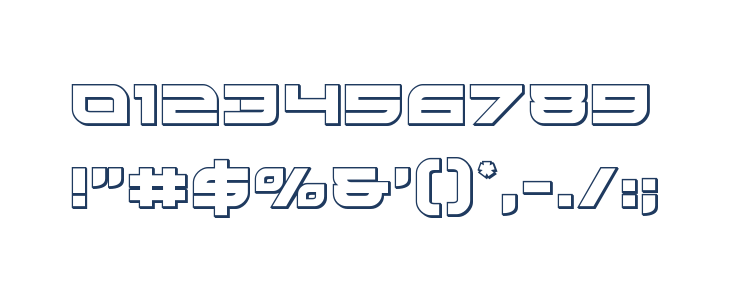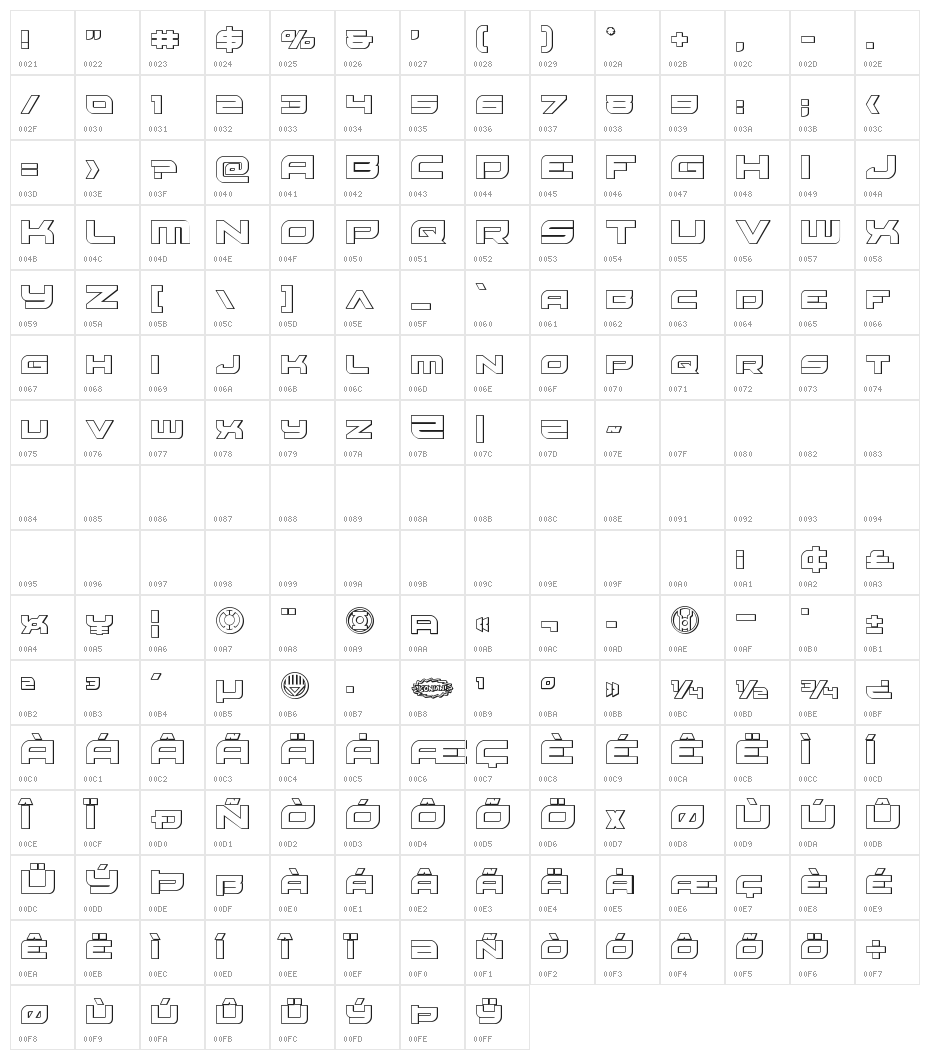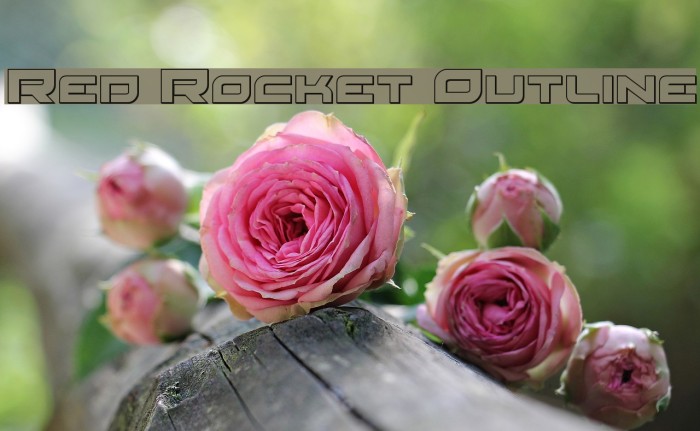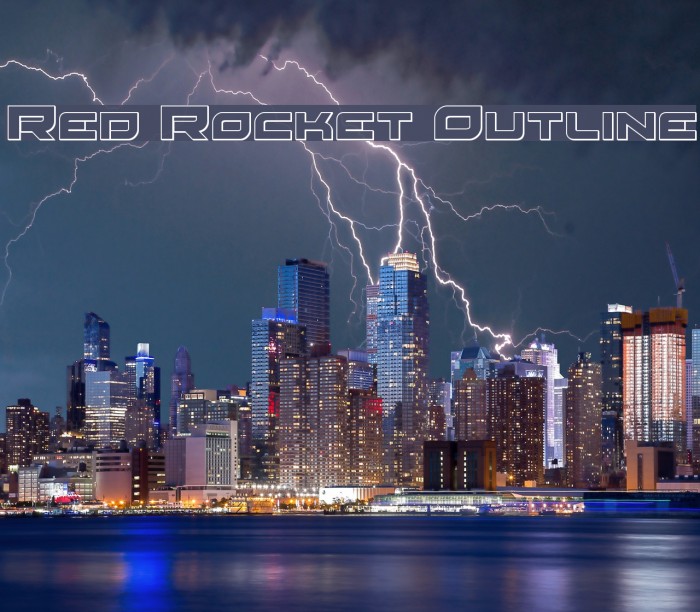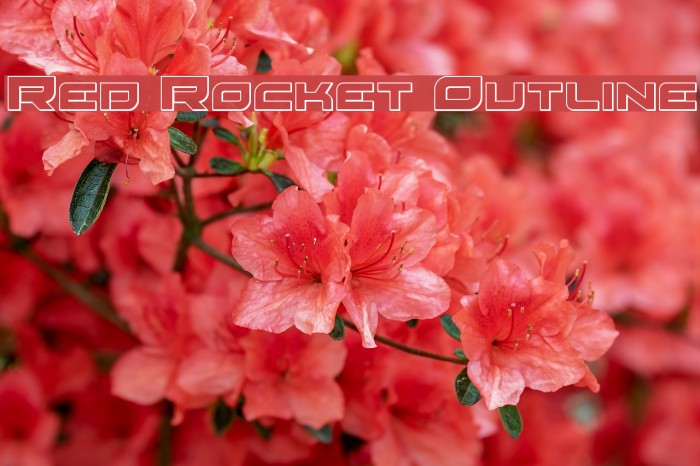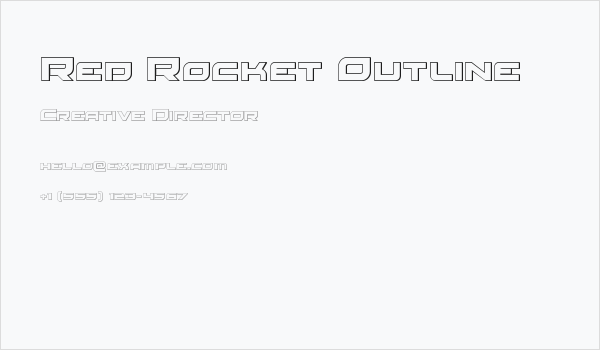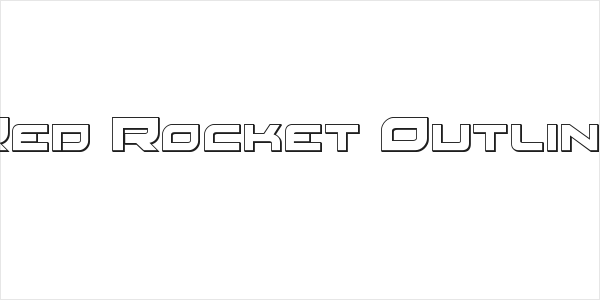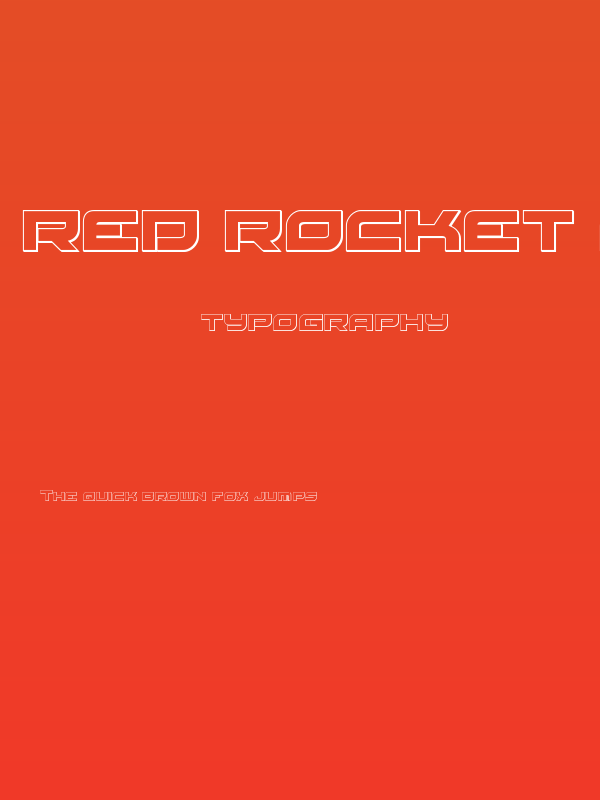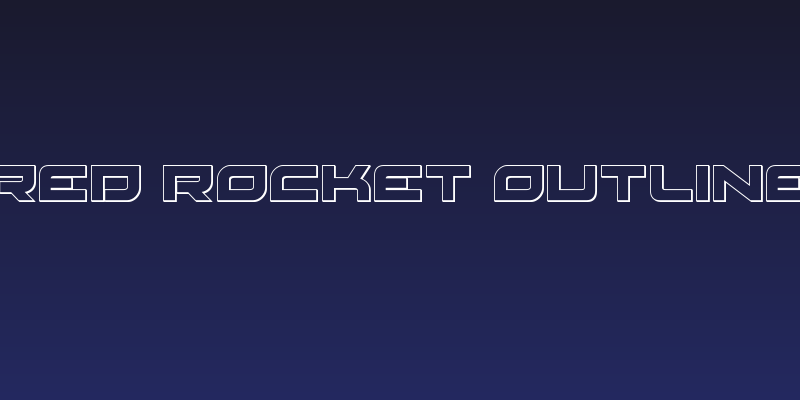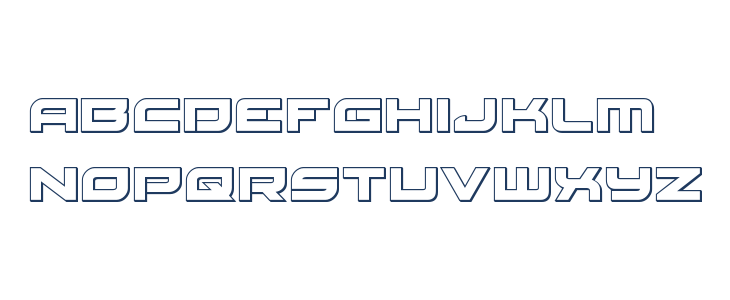
Red Rocket Outline Font
Red Rocket Outline Description
This font features a bold, geometric outline style that gives it a futuristic and modern appearance. The characters are constructed with clean, straight lines and sharp angles, creating a sense of precision and clarity. The uppercase and lowercase letters maintain a consistent height, contributing to a uniform look. The numbers and special characters follow the same design principles, ensuring a cohesive visual identity across all elements. The outline effect adds a unique dimension, making it suitable for eye-catching designs.